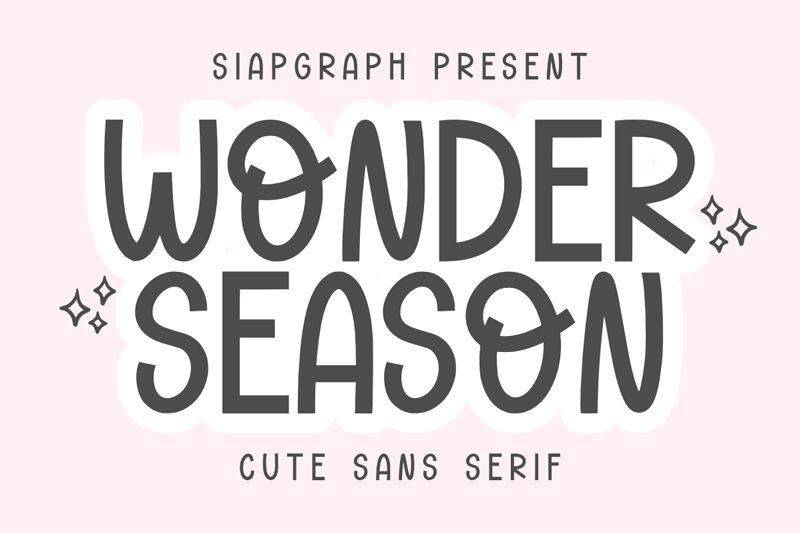
Wonder Season font by Siapgraph is a fancy typeface crafted with creativity and a dynamic vibe. Spaciously curved letter forms give this font the ability to make your designs fun and playful, perfect for putting a smile on any viewer’s face. Letters are gentle and connected in a harmonious way with an energetic effect. It includes a working character set of uppercase and lowercase letters, numbers, and punctuation.
Use Wonder Season in your projects where a curvy and professional look is needed. The font can meet the demands of branding projects in multiple sectors or industries. Design a logo with it, a business card, a website, and more items related to your brand identity. Also fine art, posters, packaging, invitations, labels, and more.